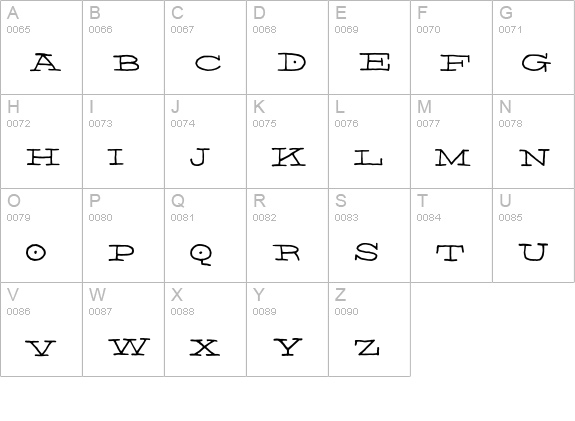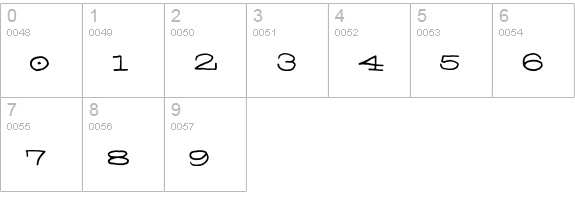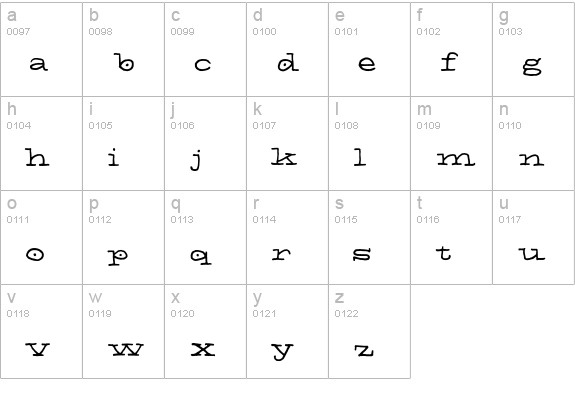
El Ni￱o Font Details
El Niño font is a stunning and versatile typeface that exudes elegance and sophistication. With its sleek lines and modern aesthetic, this font is perfect for adding a touch of class to any design project. Whether you're creating a logo, website, or print material, El Niño font will make your text stand out and grab attention. What makes El Niño font even more appealing is that it is available for free download at FontsMarket.com. This means you can easily access this beautiful font and use it in your projects without any cost. Don't miss out on the opportunity to enhance your designs with the exquisite El Niño font - download it today and elevate your typography game!